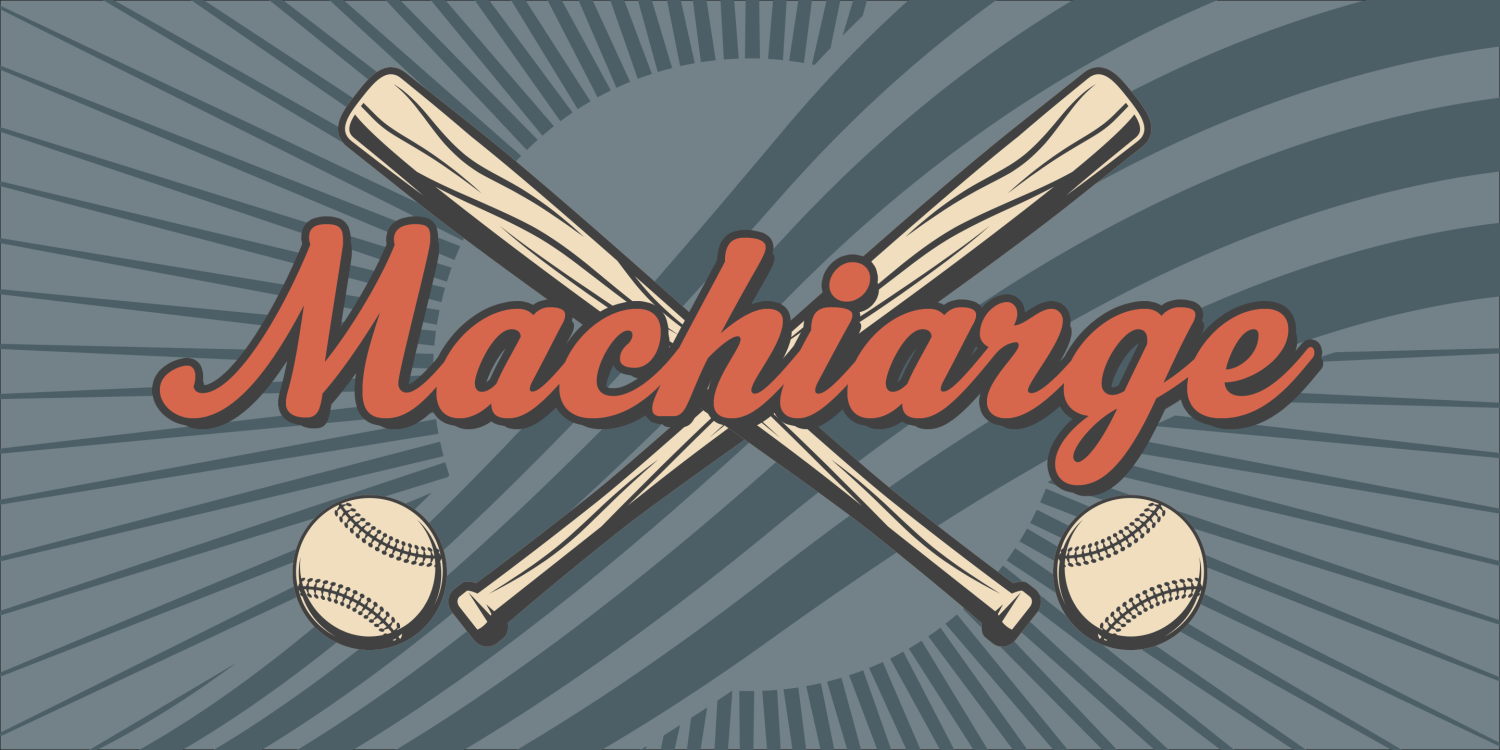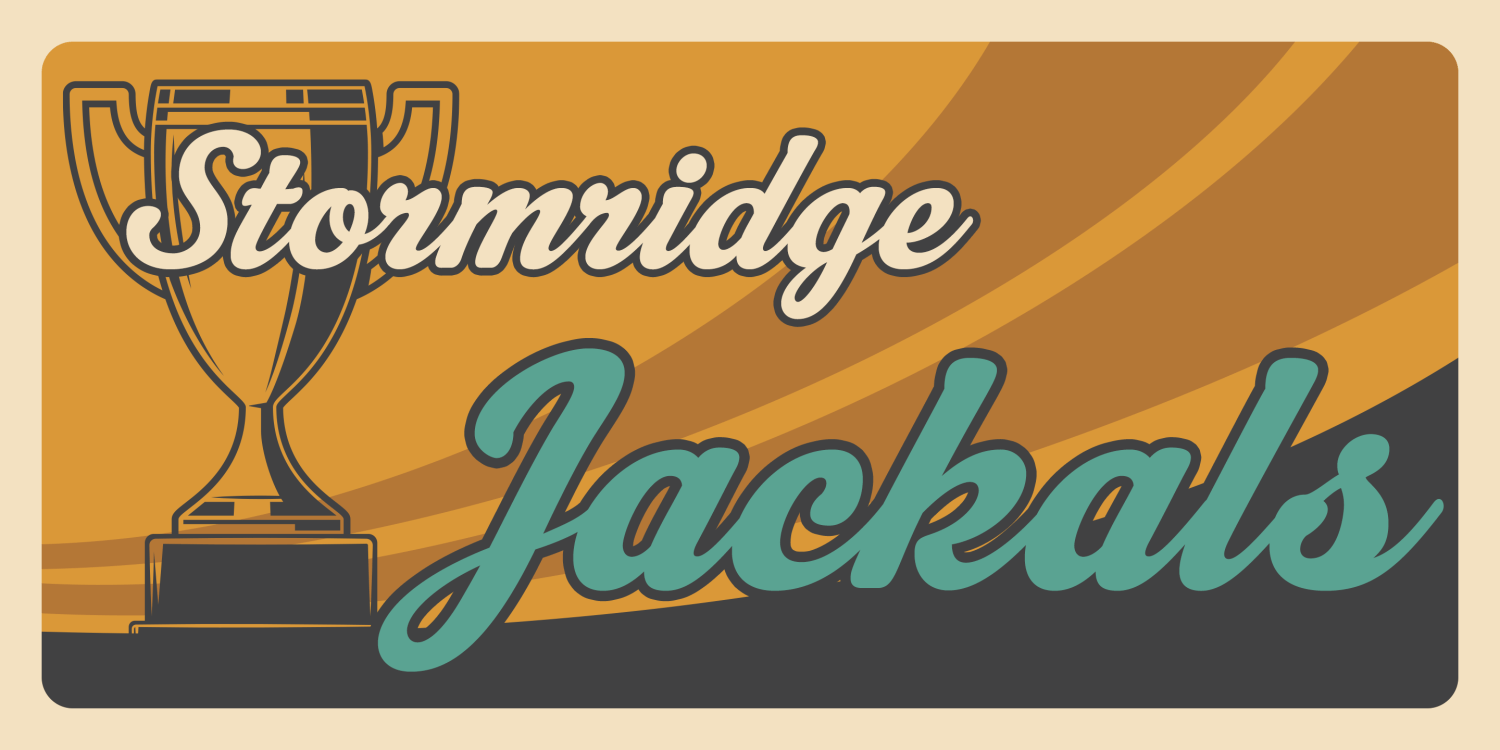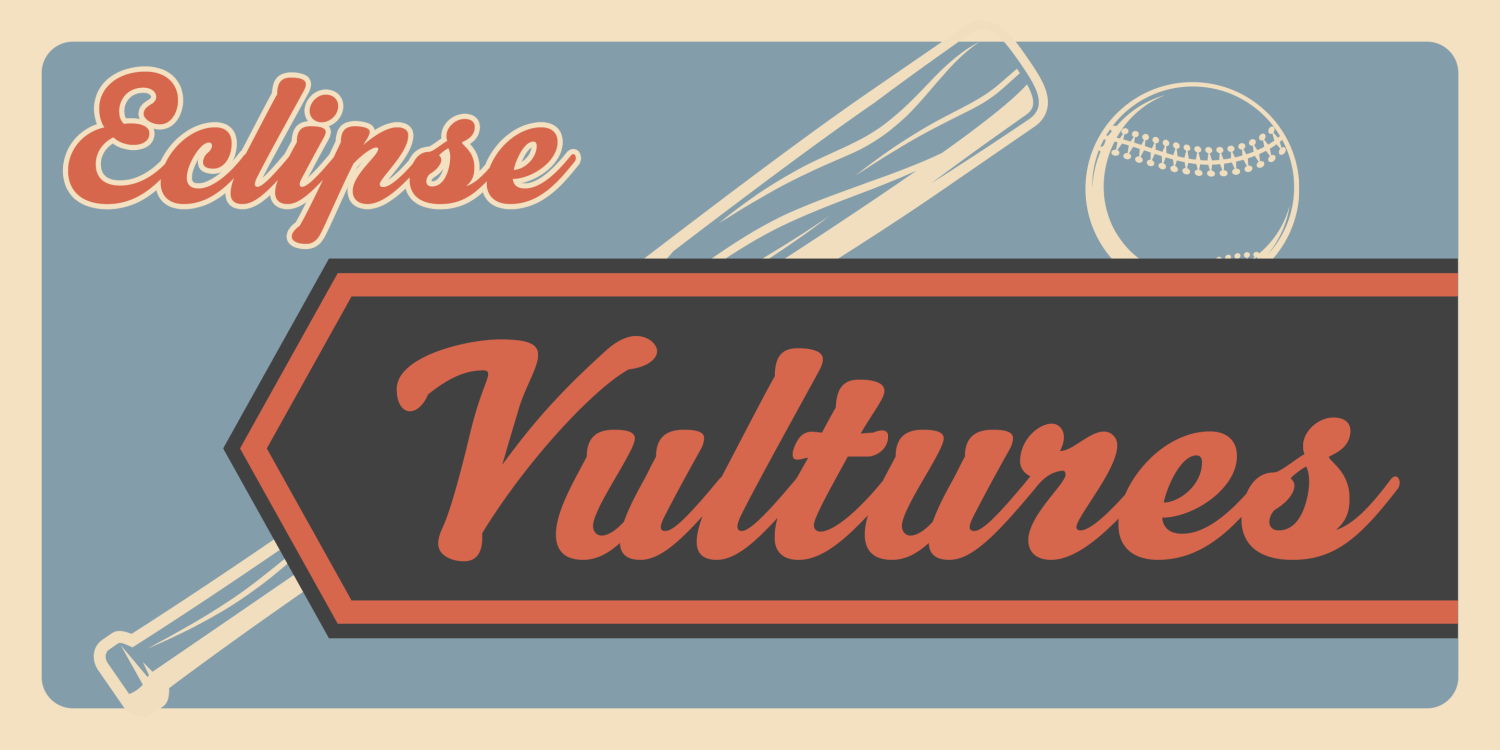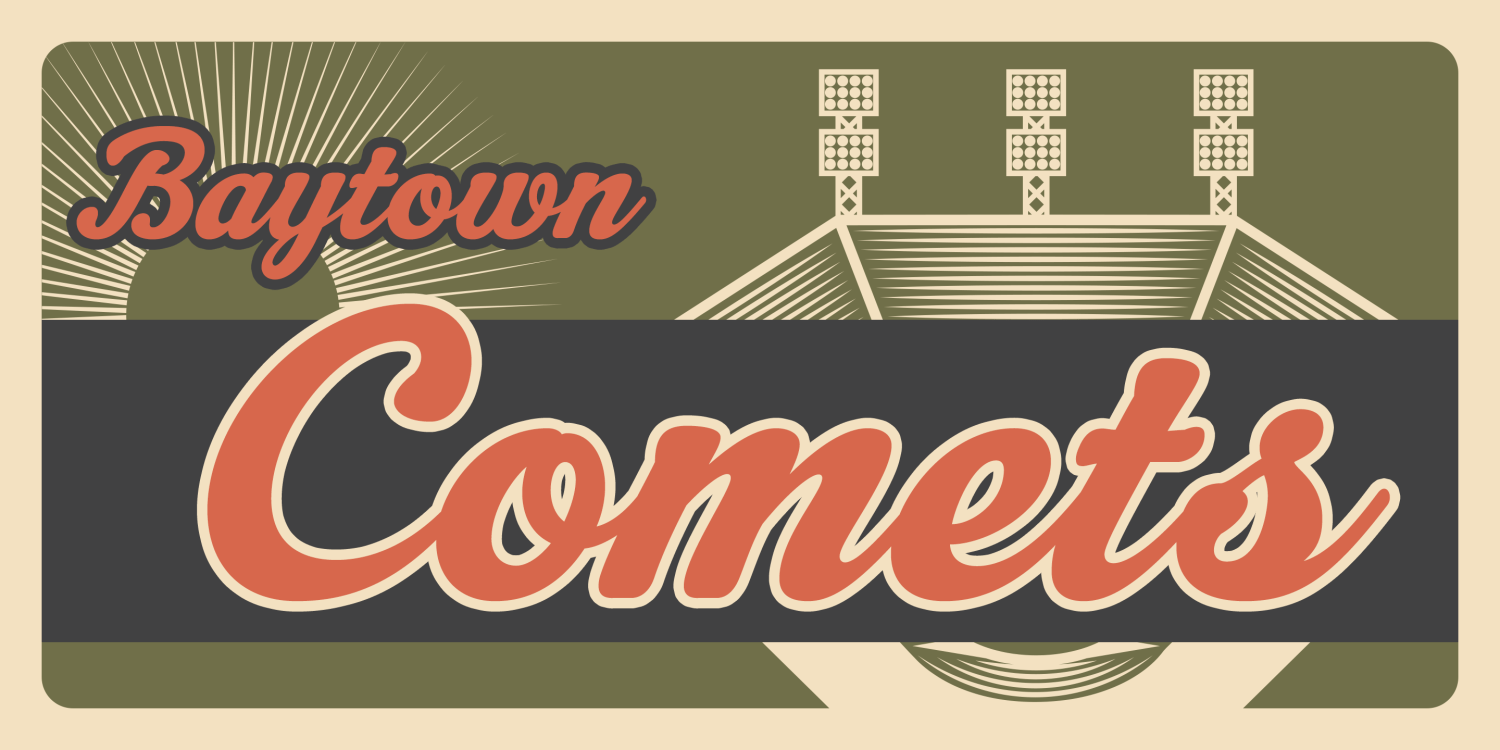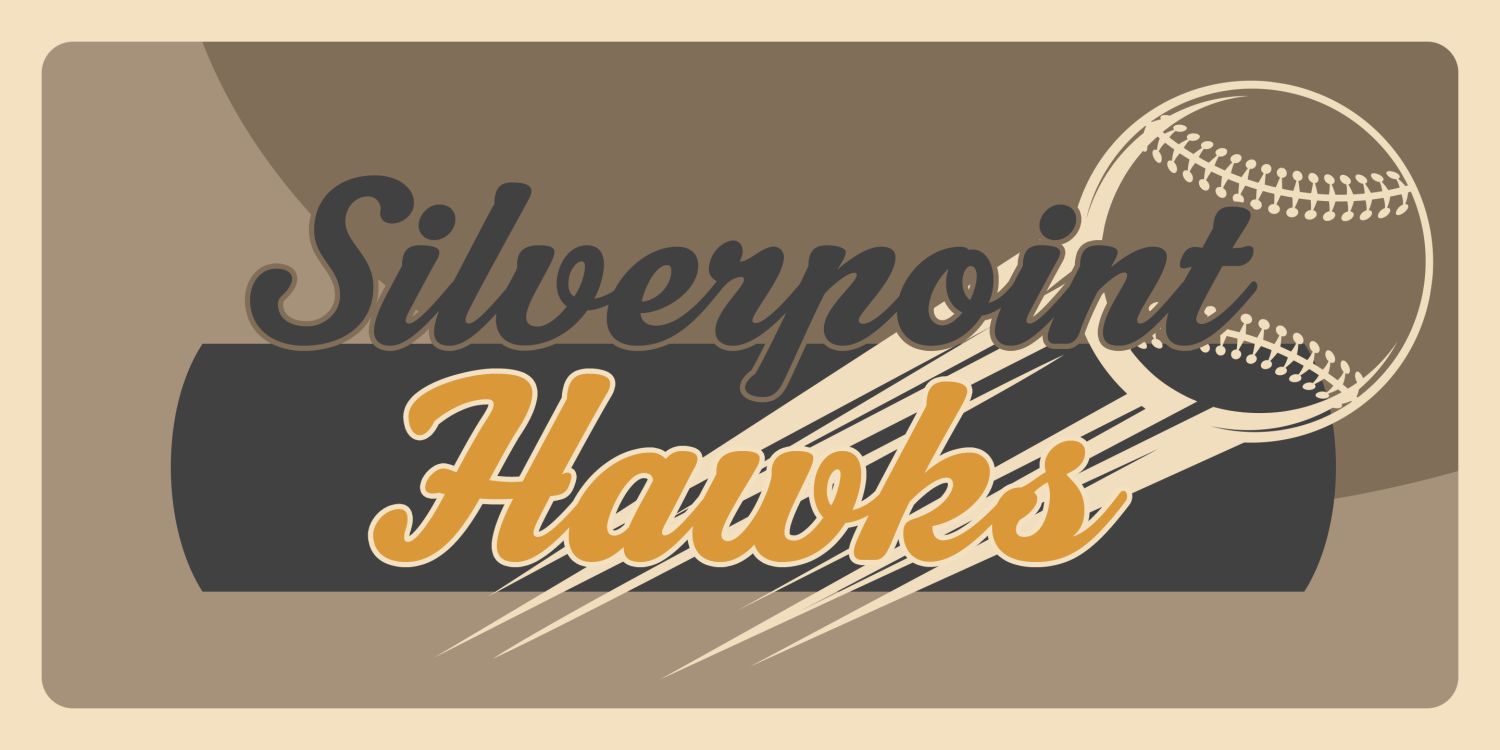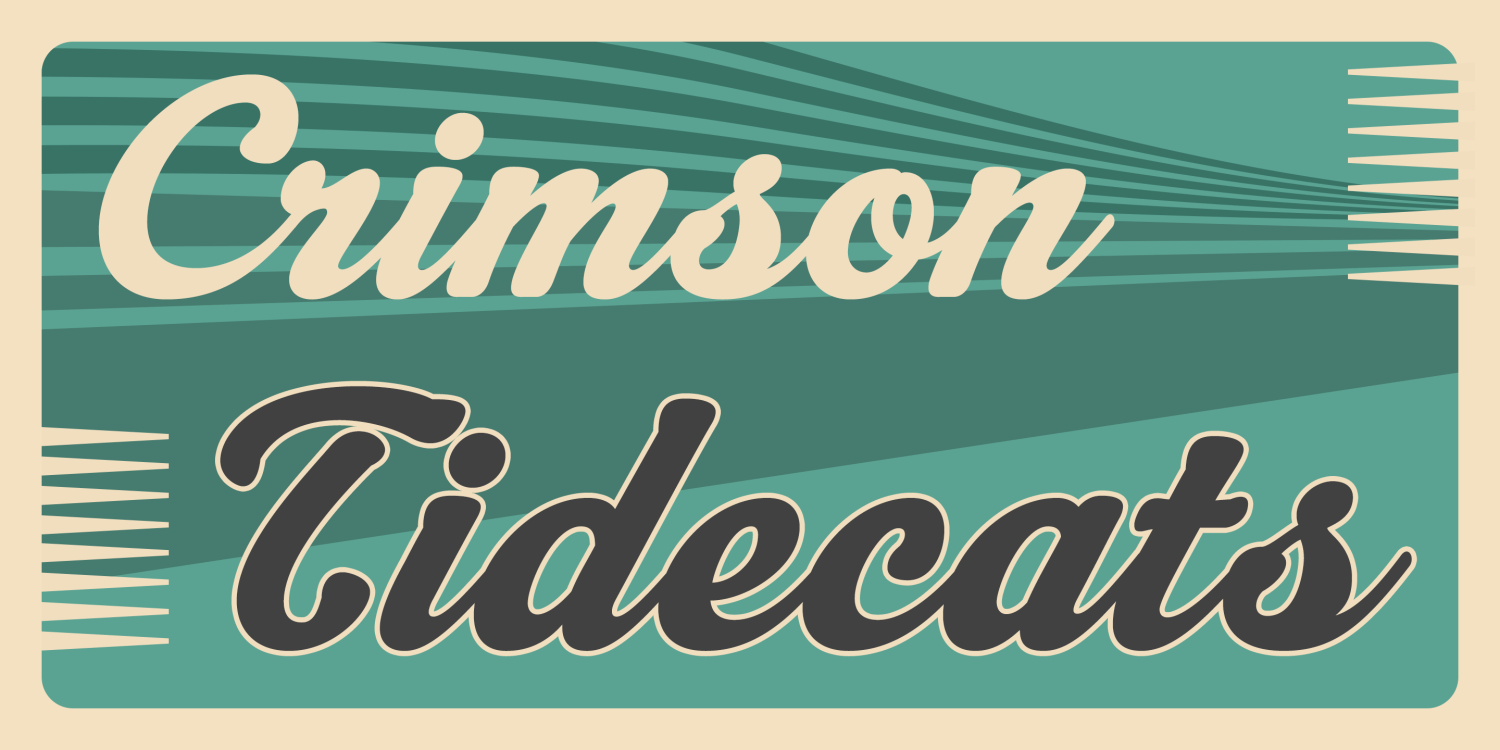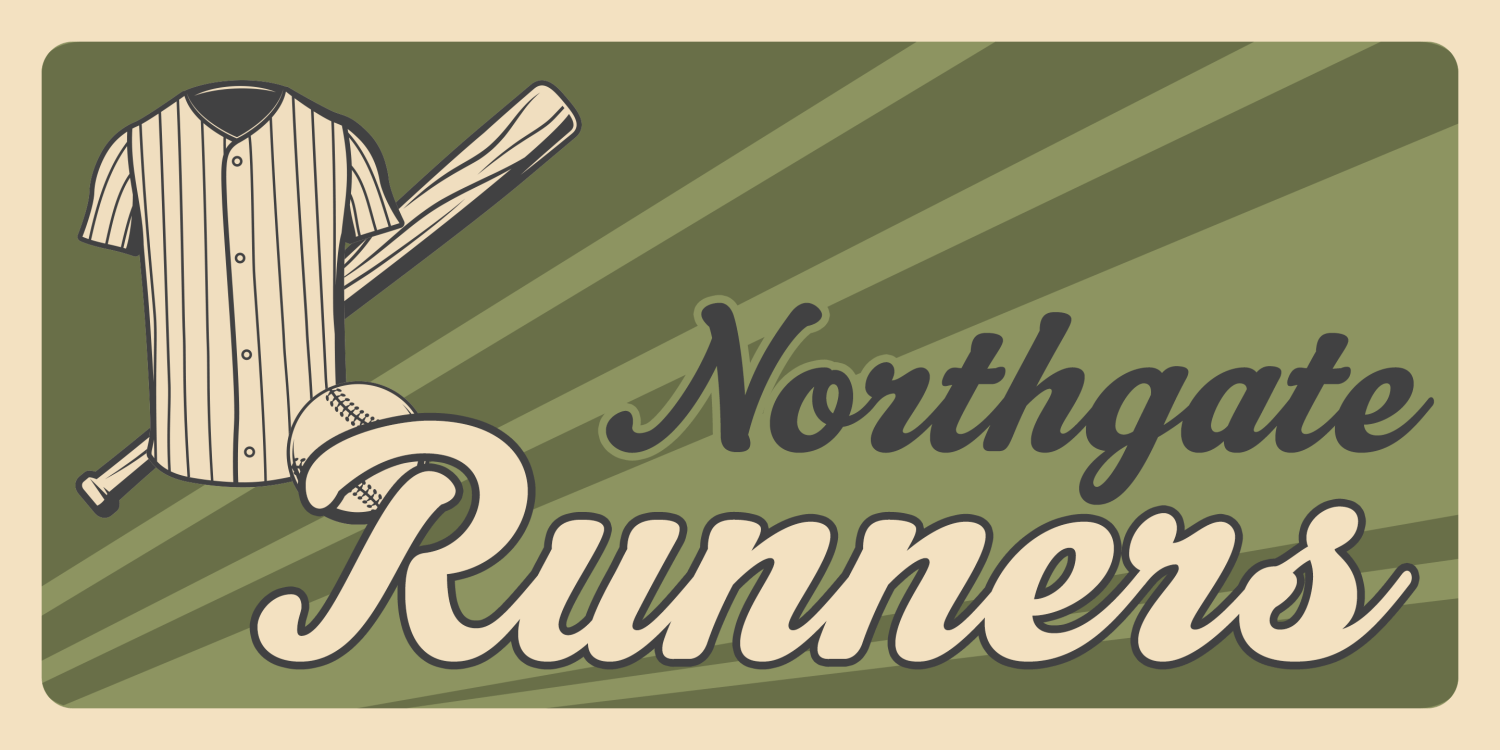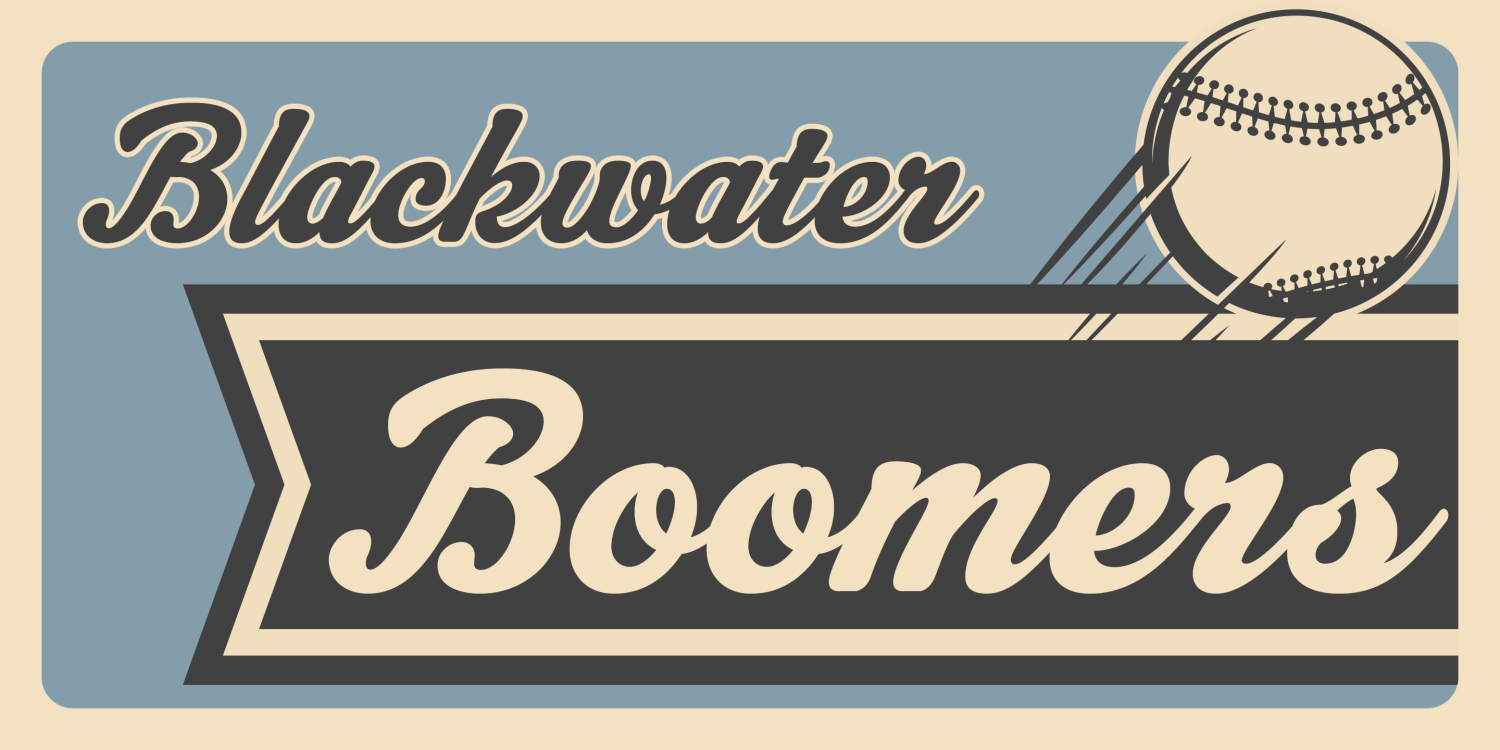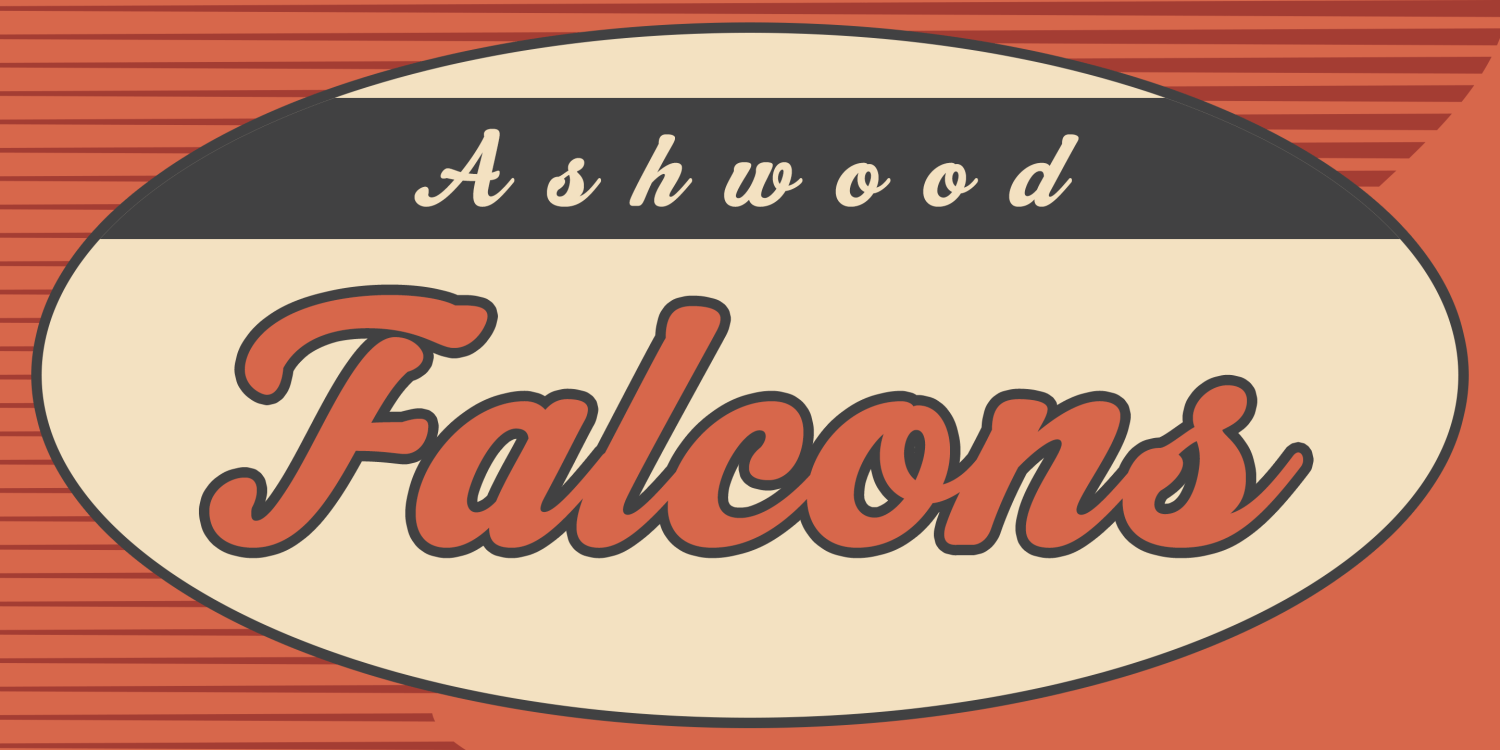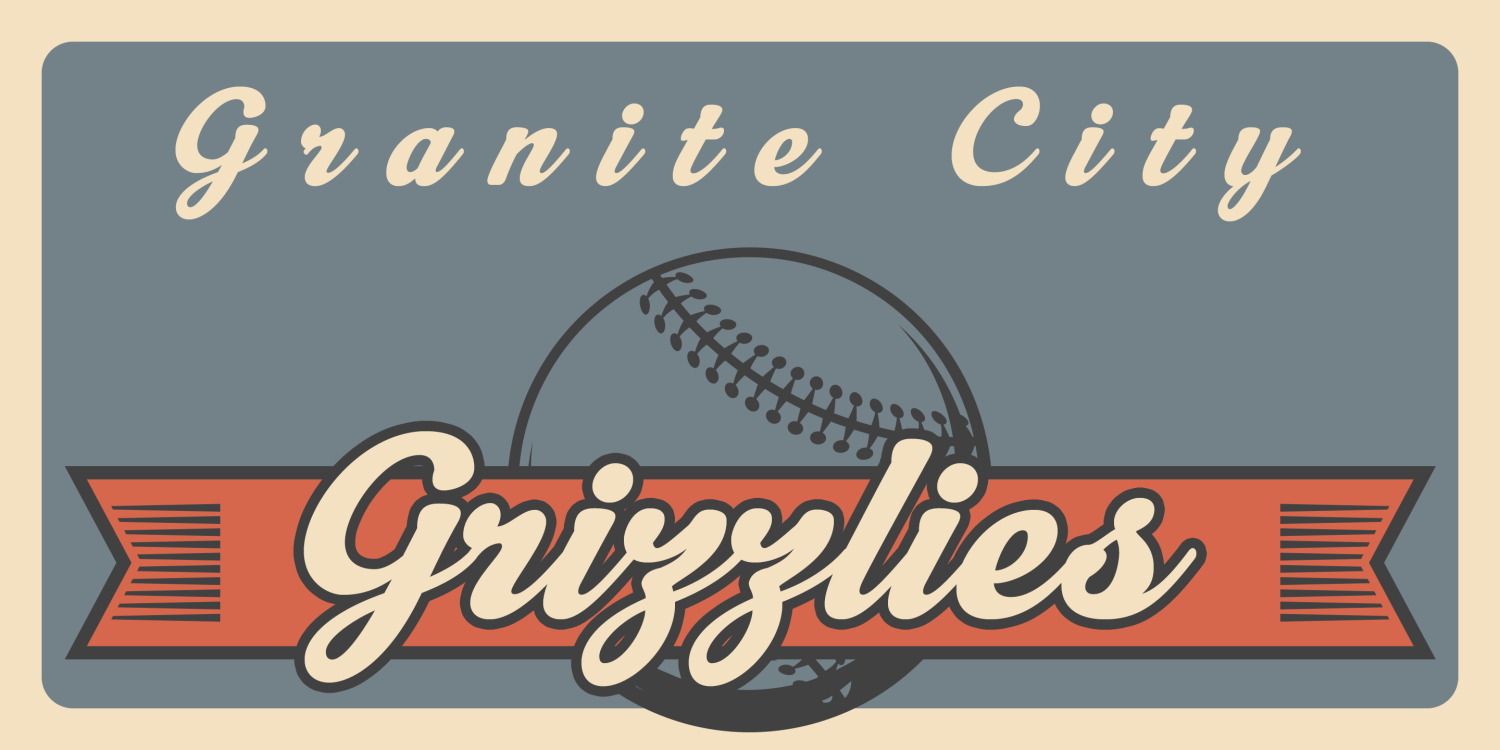
Machiarge
Font Family by Dharma Type
A best-selling baseball script, featuring distinctive brush strokes inspired by the charm of 20th-century retro cinema.
Perfect for evoking a nostalgic, energetic feel with a classic American flair.